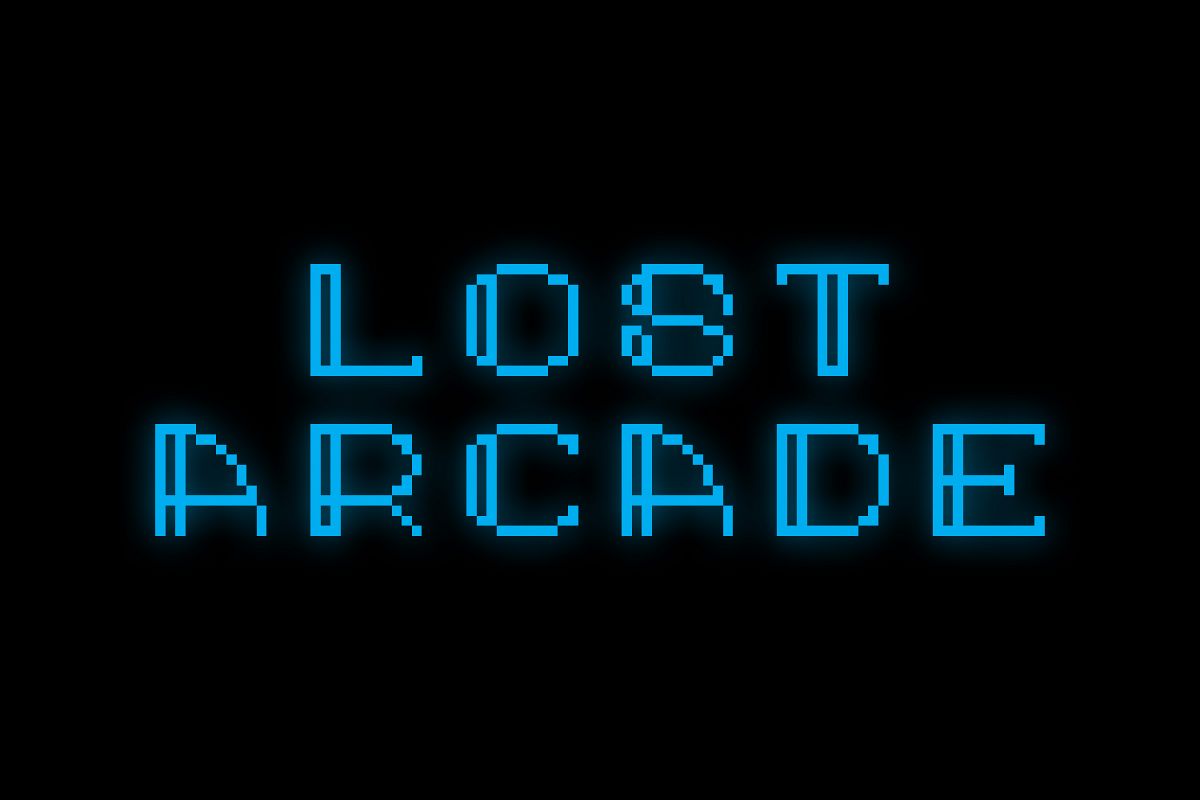
Lost Arcade Sans Adorn
Lost Arcade is a one-of-a-kind display font inspired by the nostalgia of pixel art and the theme of mystery. For the pixel purists among us, every square is proportional to its neighbors. Included here is a cleaner version of the font without the addition sylization.
Lost Arcade fonts include uppercase and lowercase characters, uppercase swash characters and broad language support, totalling at 480 glyphs.